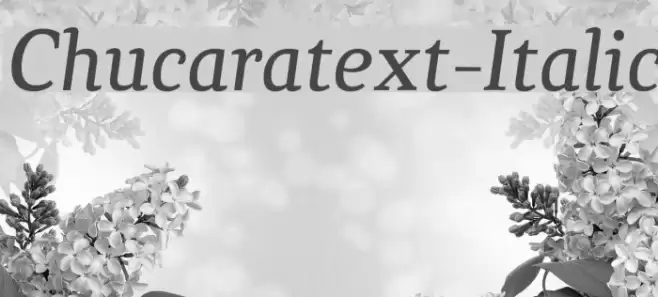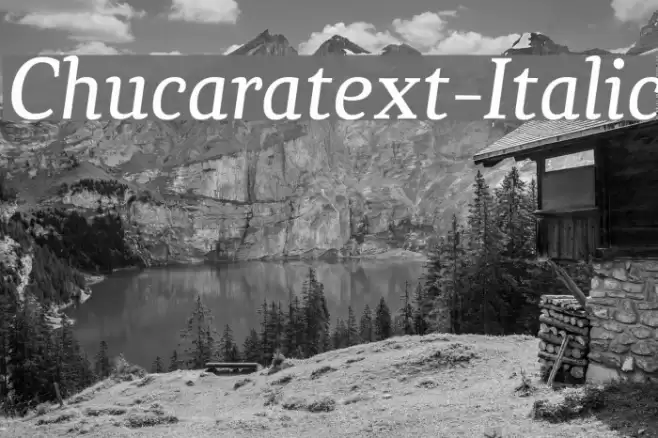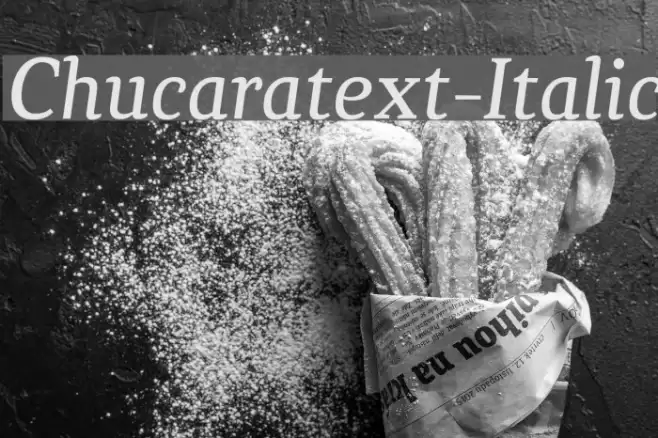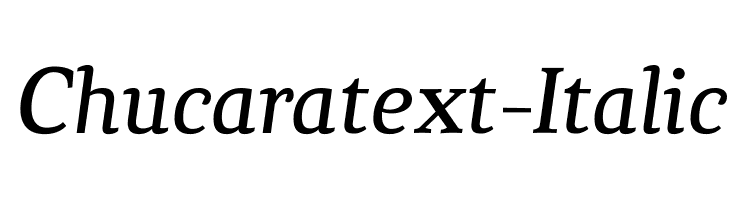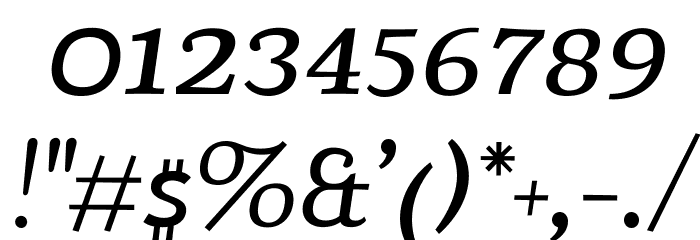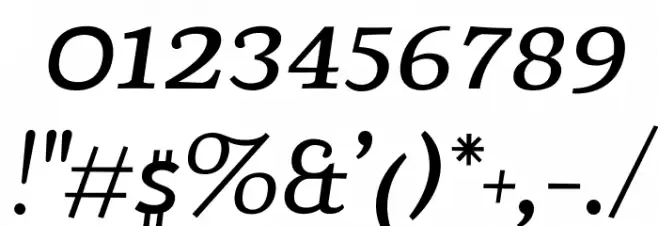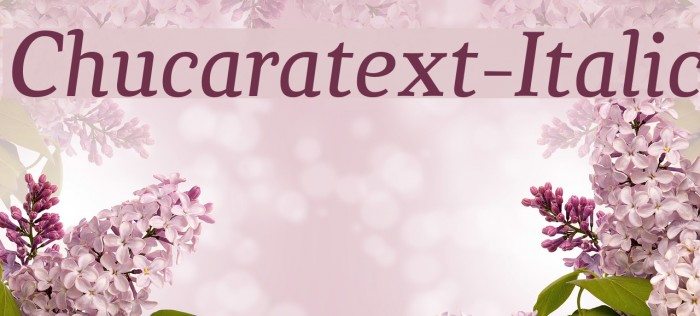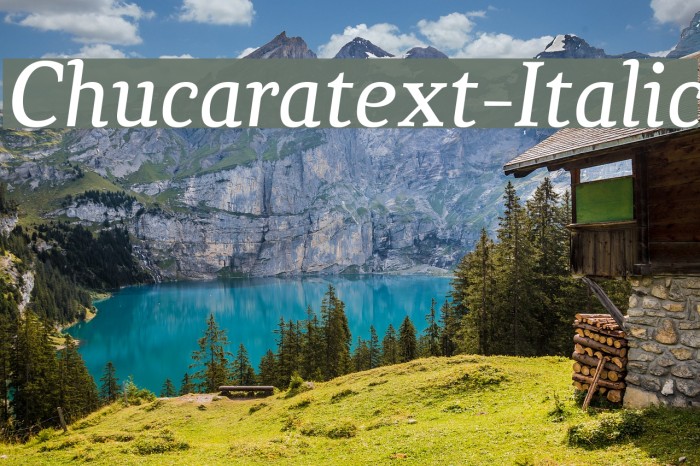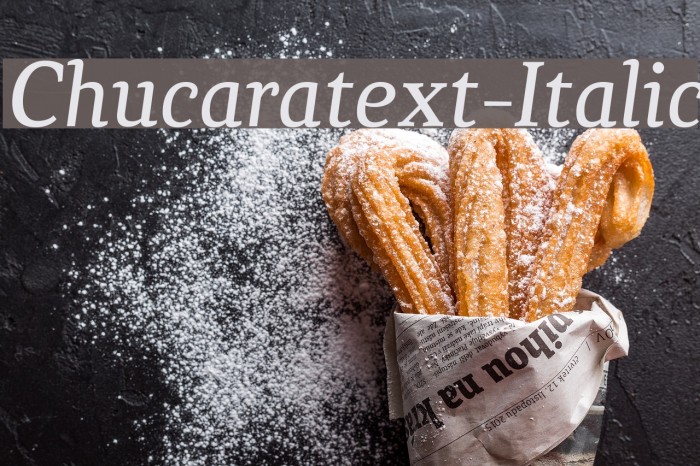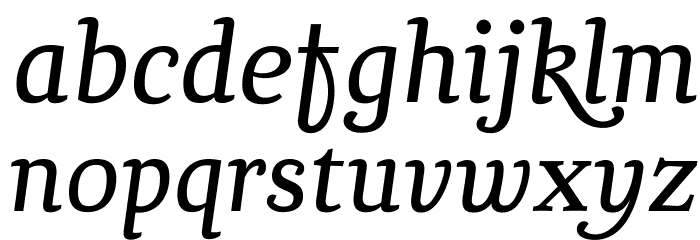
Chucaratext-Italic Font
Chucaratext-Italic Description
This font features a classic serif style with a distinct italic slant, giving it an elegant and sophisticated appearance. The serifs are pronounced, adding a touch of formality and tradition. The characters are well-proportioned, with a slight emphasis on the curves, particularly noticeable in the lowercase letters. The numerals are clear and consistent with the overall style, ensuring readability. Special characters are designed with the same attention to detail, maintaining the font's cohesive look.
Elegant serif font with an italic slant and classic styling from Uncategorized fonts.
- Proposed Projects: Ideal for formal invitations, editorial design, book covers, and branding projects that require a touch of elegance.
- Overall Style: Classic